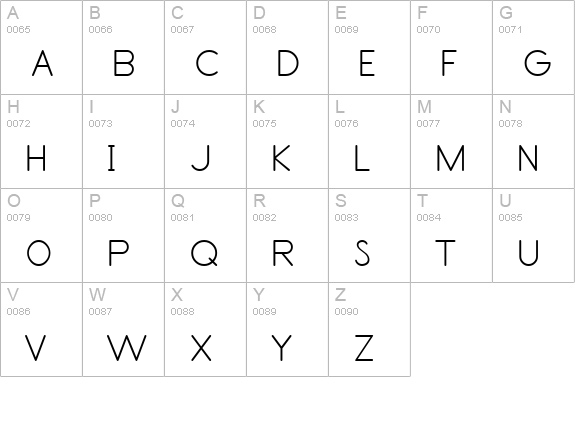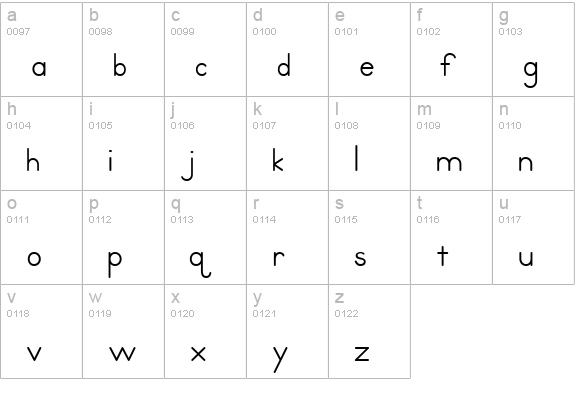
Primer Print Medium Font Details
Primer Print Medium is a balanced, medium-weight variant in the Primer typeface family \xE2\x80\x94 well suited to sub-headlines, navigation, and balanced editorial work.
Primer Print Medium font is a versatile and modern typeface that exudes sophistication and elegance. With its clean lines and balanced proportions, this font is perfect for a wide range of design projects, from branding to editorial design. The medium weight strikes the perfect balance between boldness and readability, making it ideal for headlines and body text alike. What sets Primer Print Medium font apart is not only its timeless design but also the fact that it is available for free download at FontsMarket.com. This means that designers and creatives can easily access this high-quality font without having to worry about breaking the bank. Whether you're working on a professional project or a personal endeavor, Primer Print Medium font is sure to elevate your designs and make a lasting impression.